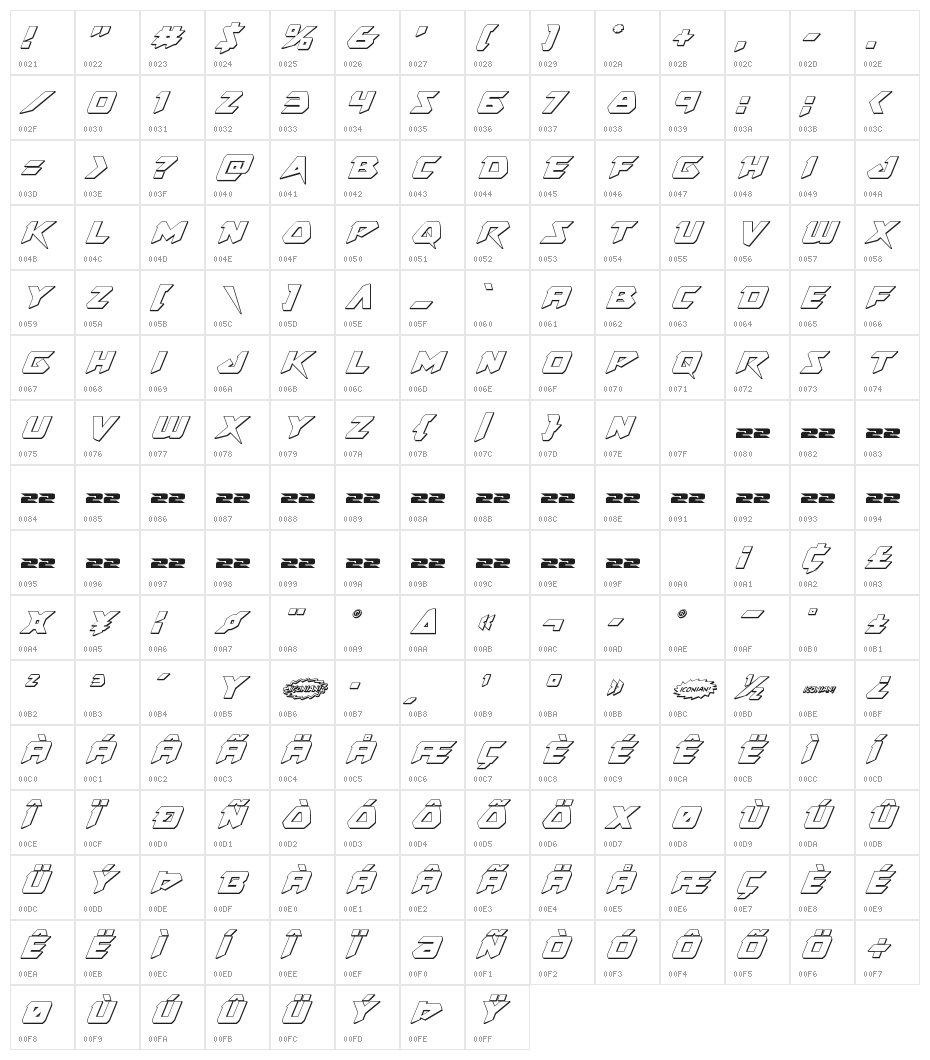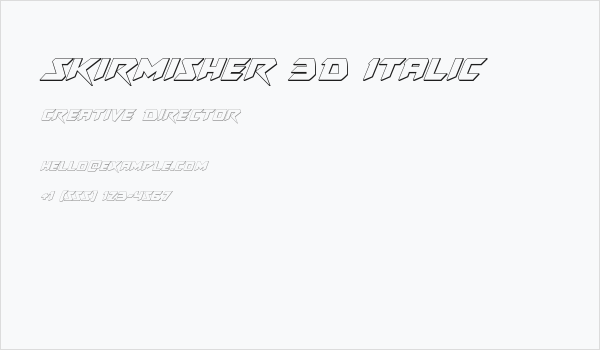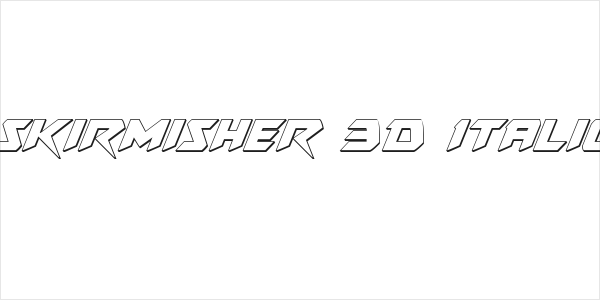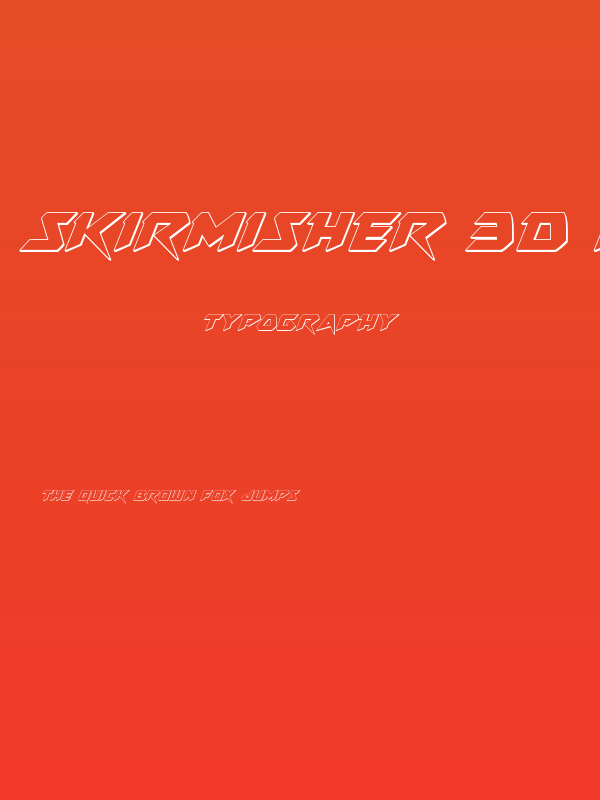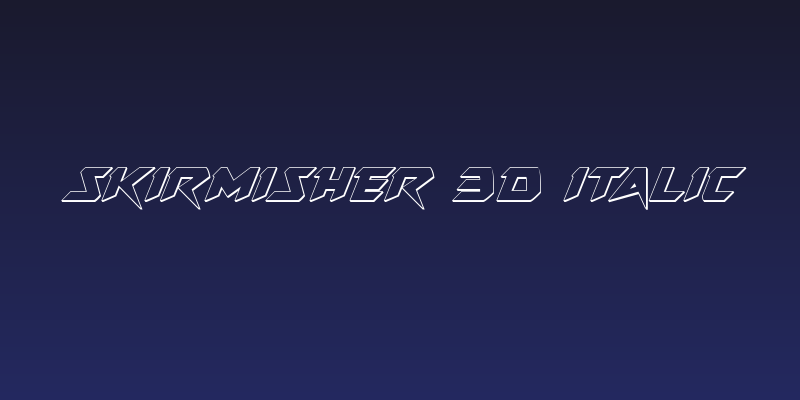
Skirmisher 3D Italic Font
Skirmisher 3D Italic Description
This font features a bold, 3D italic style with sharp, angular edges and a futuristic appearance. The letters are designed with a strong sense of movement and depth, making them stand out with a dynamic and energetic feel. The uppercase and lowercase letters maintain a consistent style, with each character having a distinct, edgy outline that enhances the 3D effect. The numbers and special characters follow the same design principles, ensuring uniformity across all glyphs. The font's unique style is ideal for projects that require a modern, eye-catching typeface.